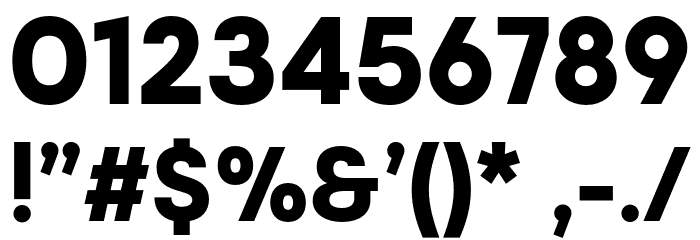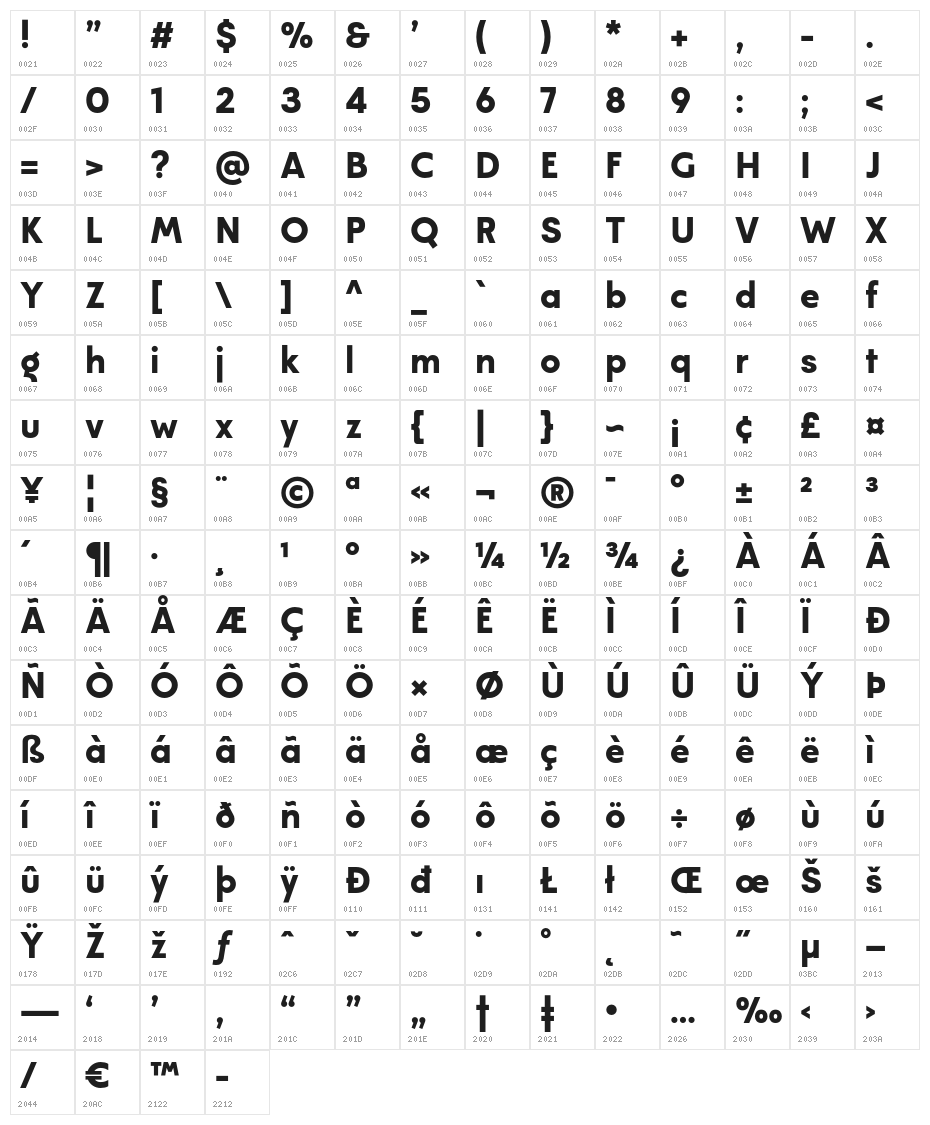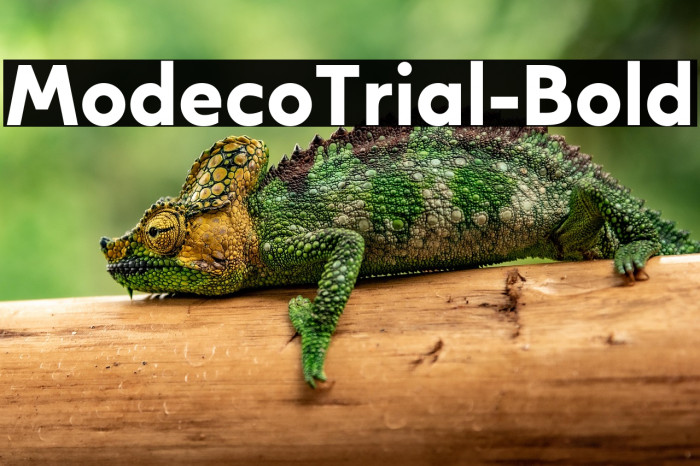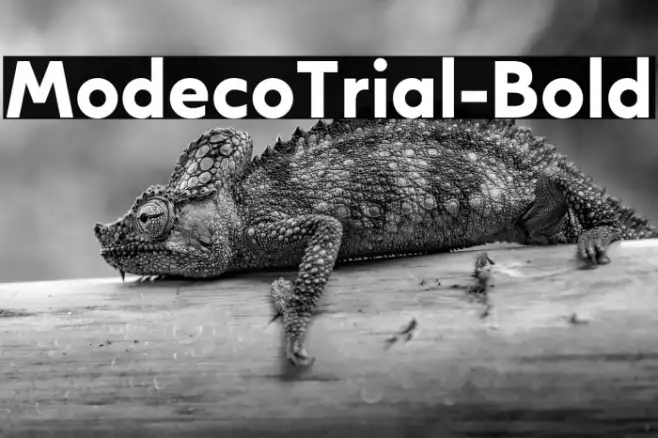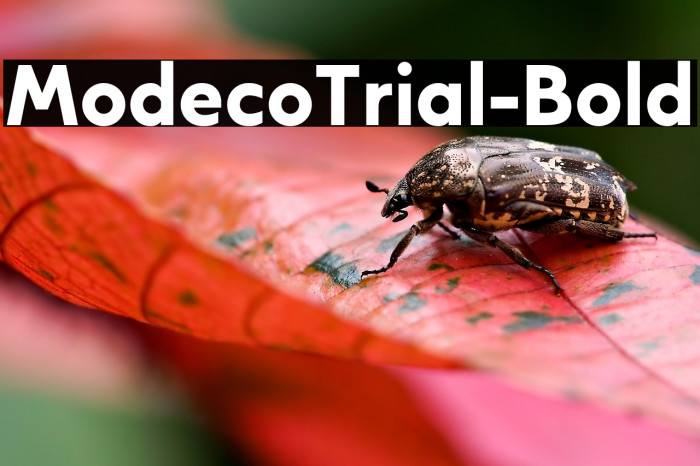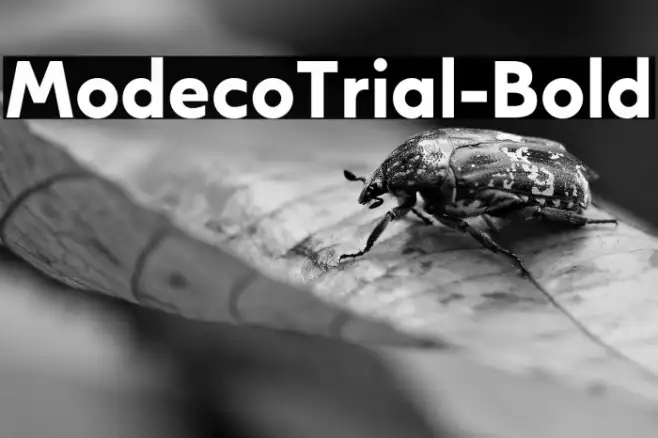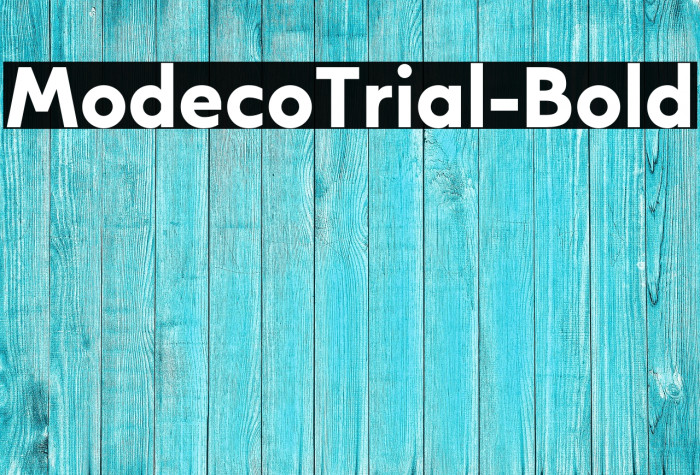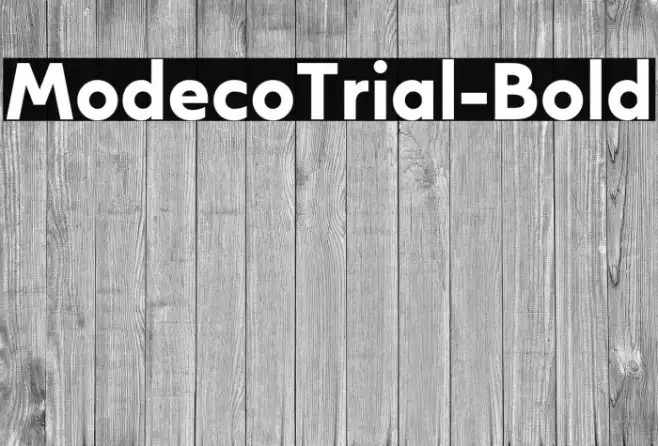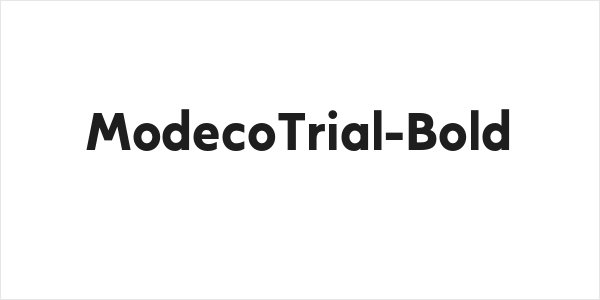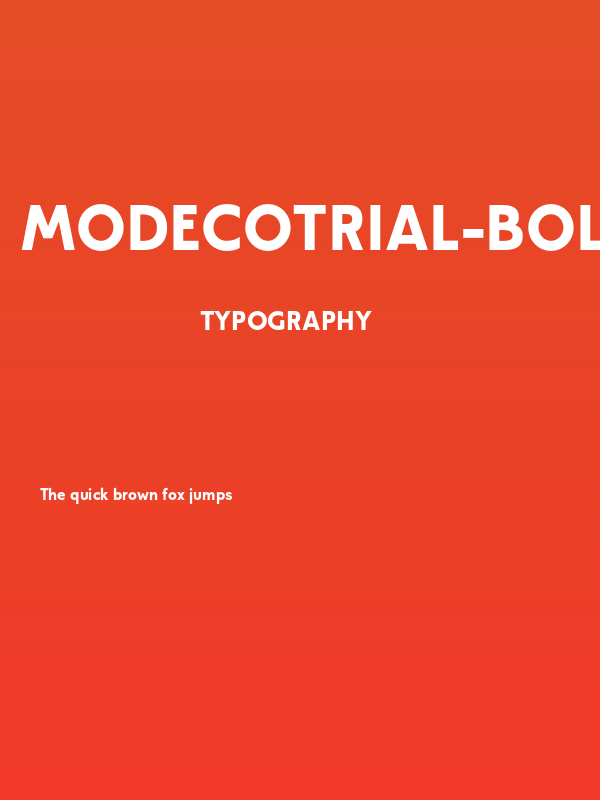
ModecoTrial-Bold Font
ModecoTrial-Bold Description
This font features a bold and modern sans-serif style, characterized by clean lines and a strong presence. The uppercase letters are uniform in height, with a slight geometric influence that adds a contemporary feel. The lowercase letters maintain a consistent weight, offering a harmonious balance with the uppercase. The numerals are clear and easy to read, making them suitable for various applications. Special characters are well-defined, enhancing the font's versatility. Overall, this typeface exudes confidence and clarity, making it ideal for impactful designs.